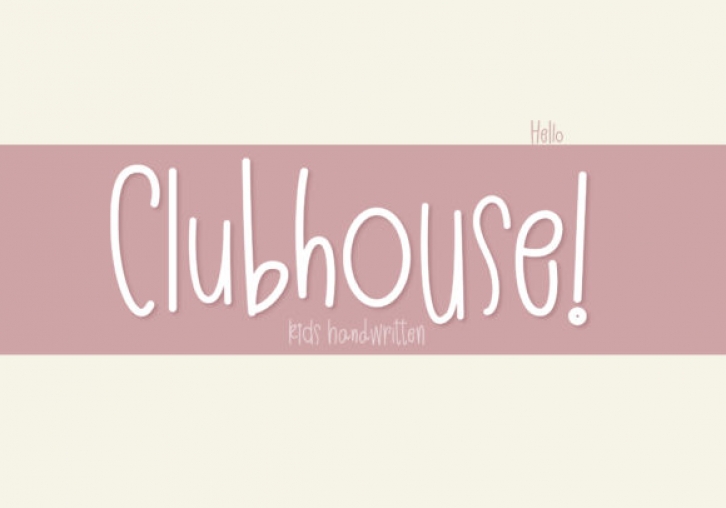
Clubhouse is a fresh, unique script with a carefree attitude and a playful edge.
This font is perfect for logos, invitations, wedding designs, social media posts and much more!